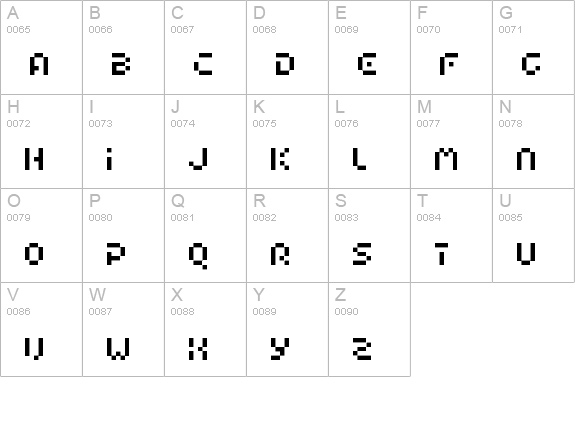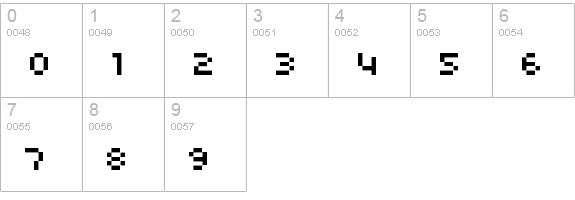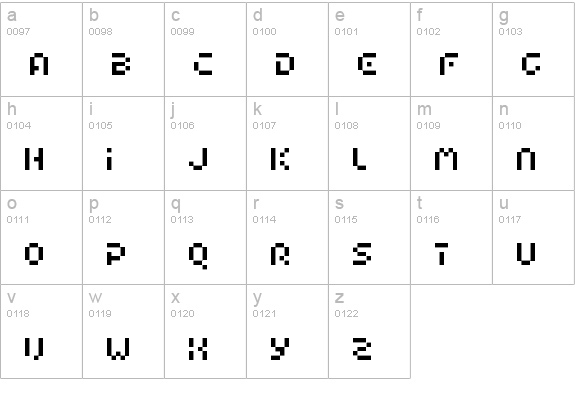
HIAIRPORTDEPARTURE Font Details
Introducing HIAIRPORTDEPARTURE font, a sleek and modern typeface perfect for adding a touch of sophistication to your designs. This font features clean lines and a contemporary style that will elevate any project it is used in. With its bold presence and versatile nature, HIAIRPORTDEPARTURE font is sure to make a statement. What sets HIAIRPORTDEPARTURE font apart is its seamless blend of professionalism and creativity, making it suitable for a wide range of applications. Whether you are designing a logo, branding materials, posters, or websites, this font will deliver a polished and professional look. And the best part? HIAIRPORTDEPARTURE font is freely available to download at FontsMarket.com, making it accessible to all designers looking to enhance their projects with a touch of elegance. Don't miss out on the opportunity to add this stunning font to your collection and take your designs to the next level.